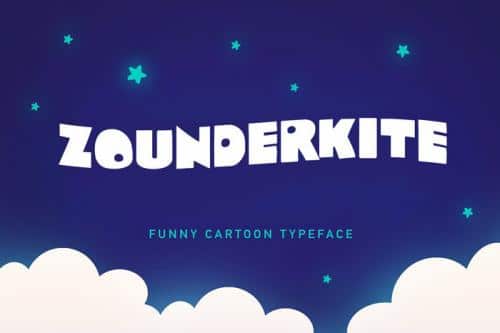
Zounderkite Font Family designed and shared by Iconian Fonts. It’s very good for cartoon logos and short tittles, children books and greeting cards. Created for the celebration and fun.